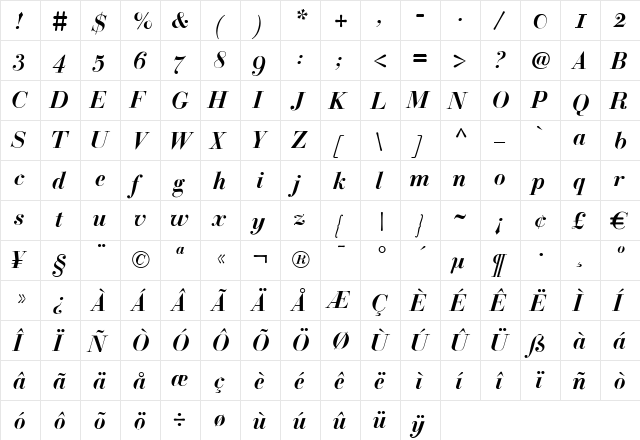
Bodoni Classic Bold Italic
Design Context for Bodoni Classic Typeface
Bodoni Classic has the warm character of retro typography — evoking diners, record sleeves, and the golden age of print advertising. Its italic angle brings a sense of urgency and motion to the letterforms. Its bold stroke weight gives it real presence on the page.
Ideal for diner signage, record shop branding, 70s/80s-themed projects, and heritage product labels.
Font Pairing: Combine Bodoni Classic with a simple slab or neutral sans — period-accurate companions reinforce the vintage feel without competing for attention.
Pro Tip: Lean into Bodoni Classic's period character by pairing it with aged paper textures, muted colour palettes, and vintage illustration styles.